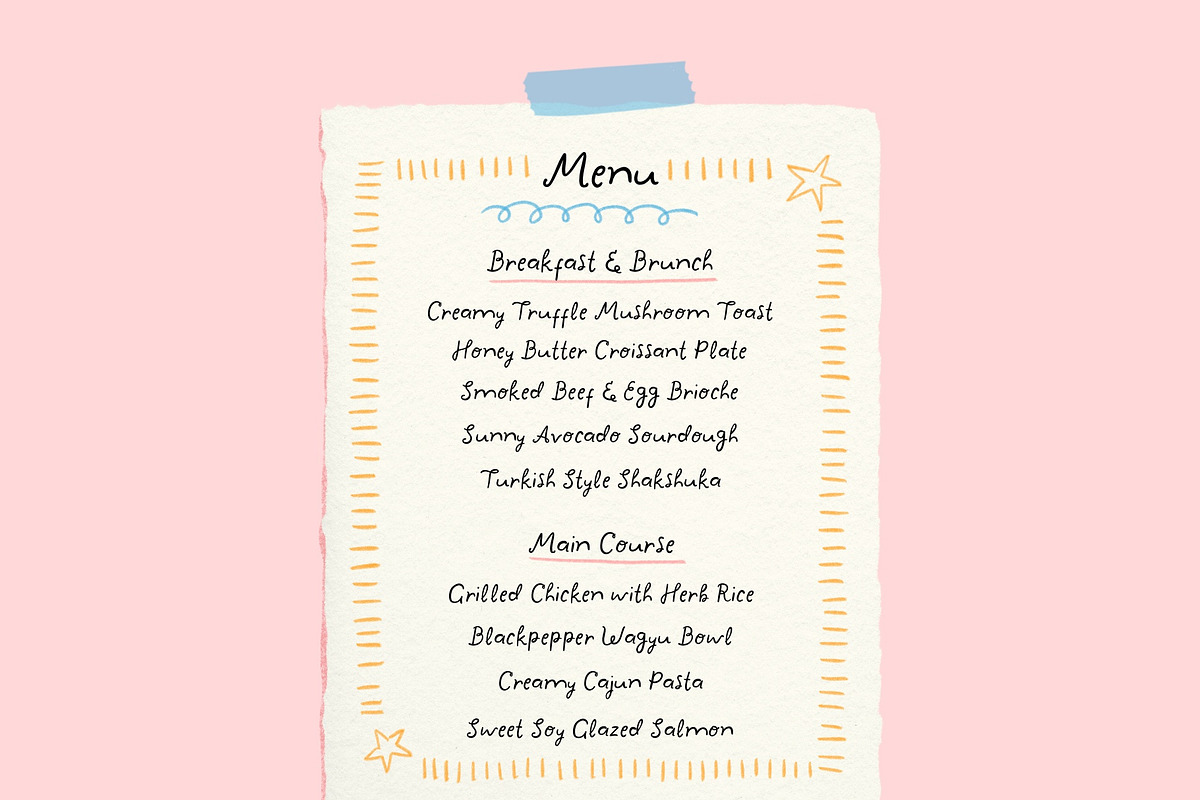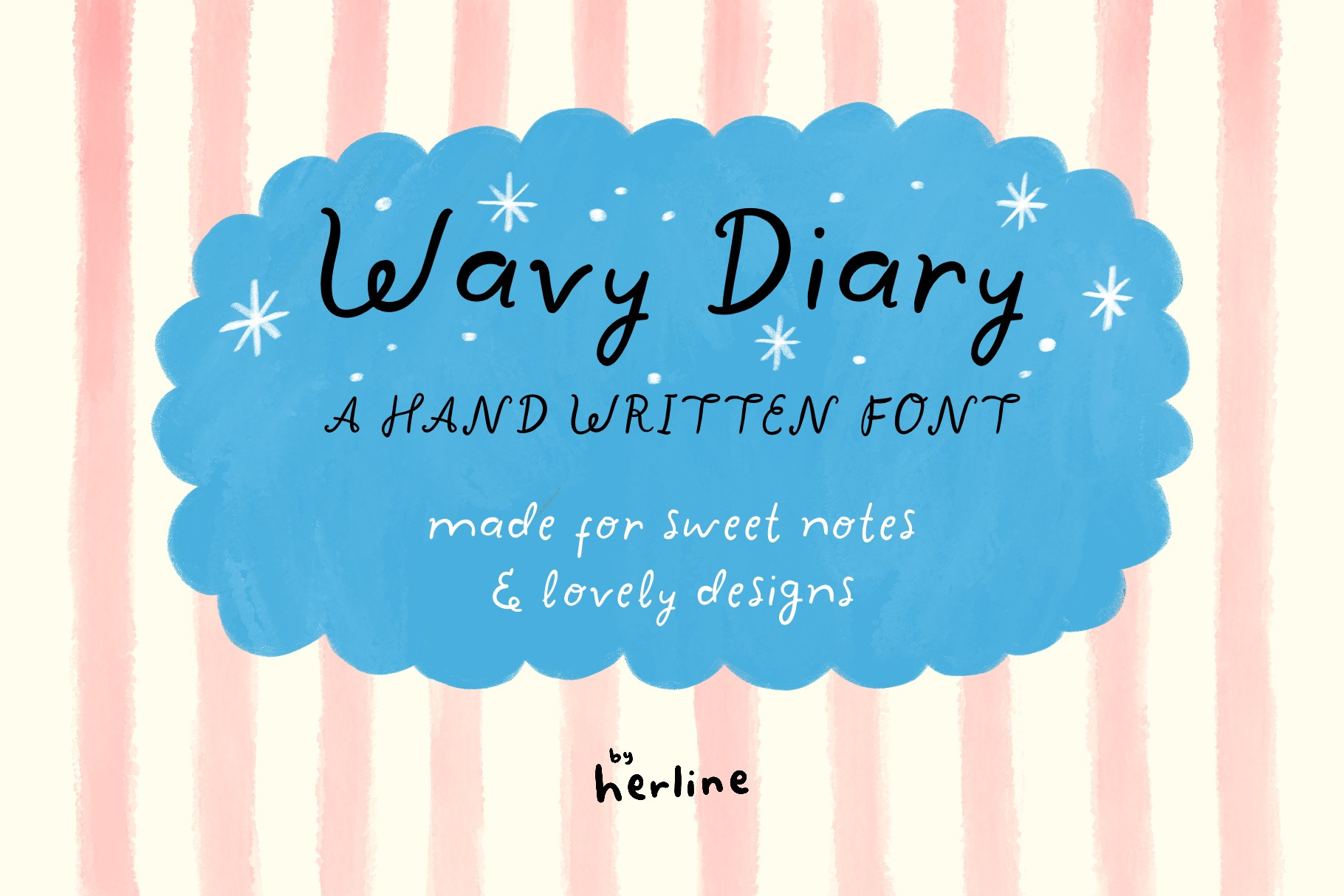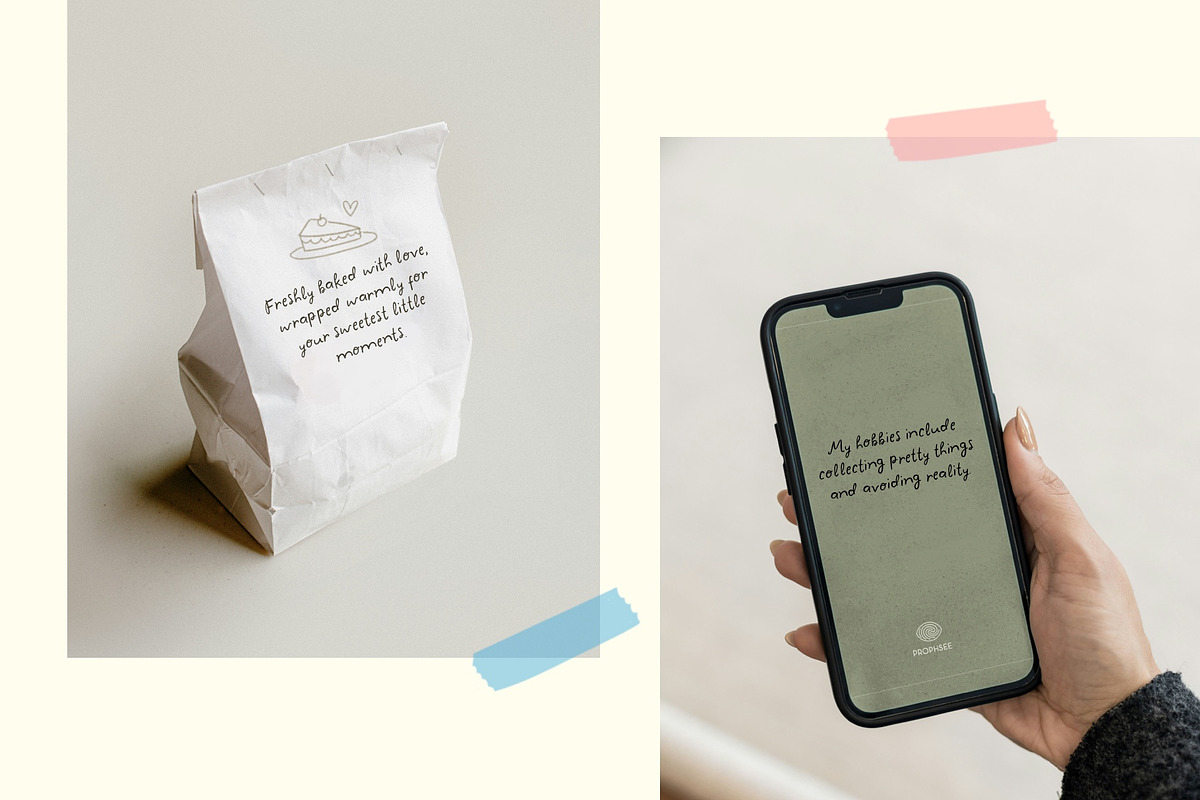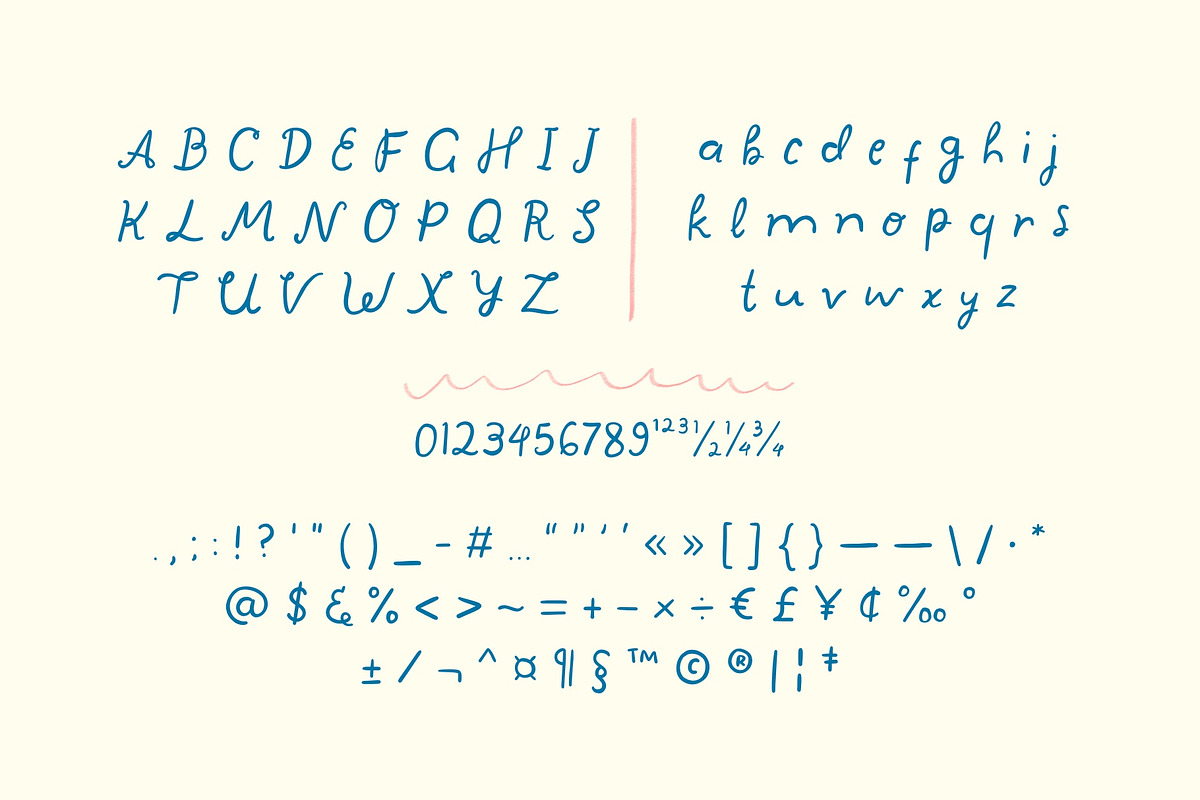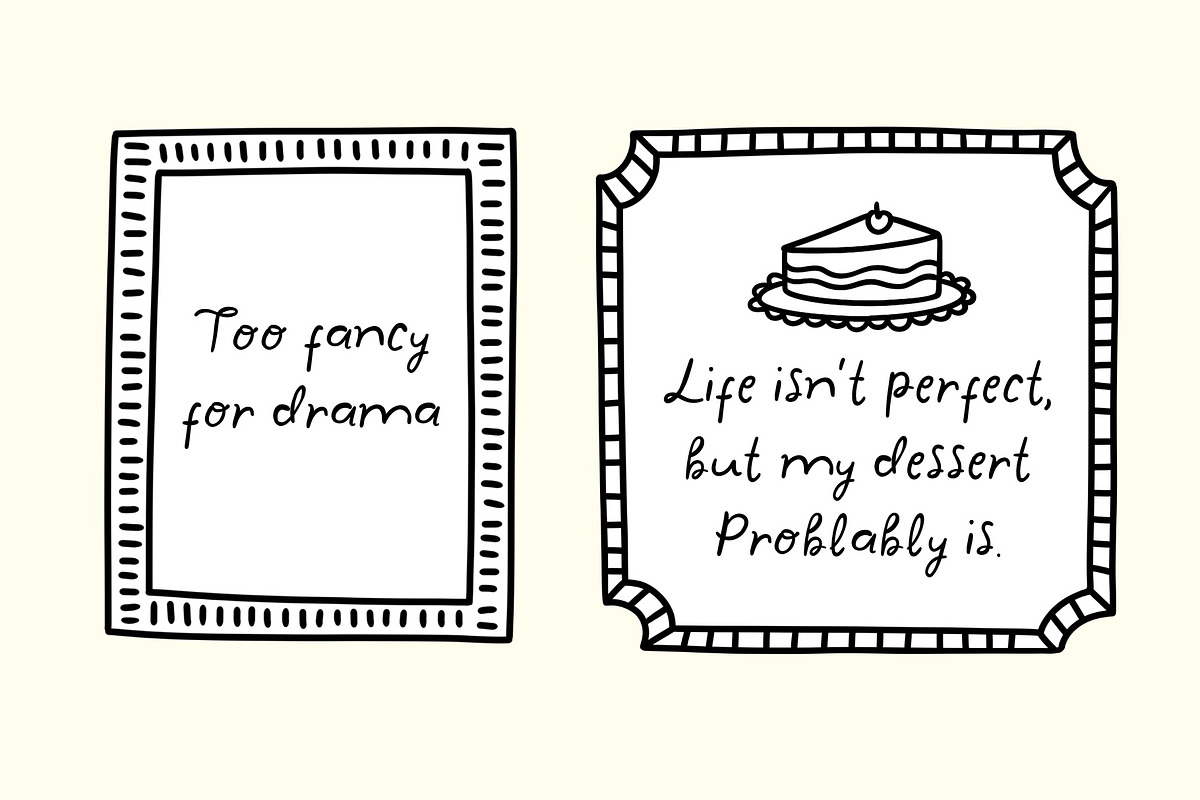
Wavy Diary - Handwritten Font
A playful handwritten font with soft curves and a warm personal touch. Inspired by little notes, cozy journals, and carefree doodles, this font brings a sweet and natural feeling to every design.